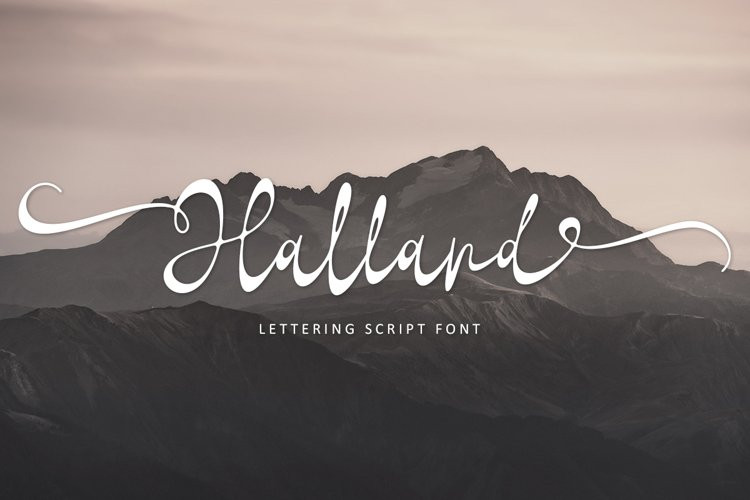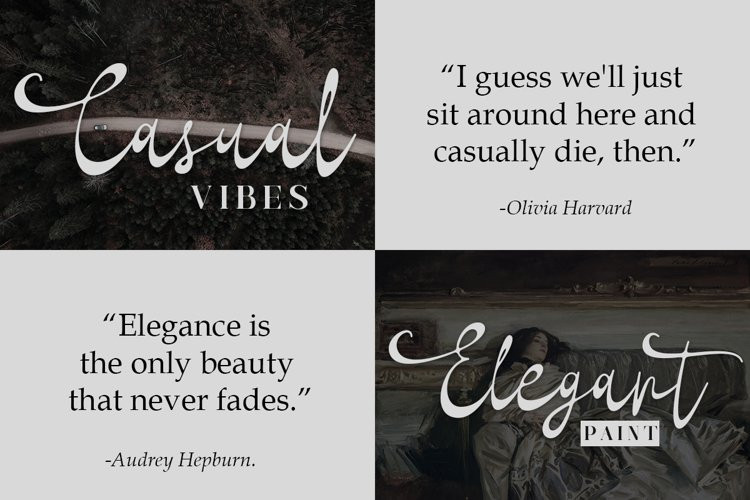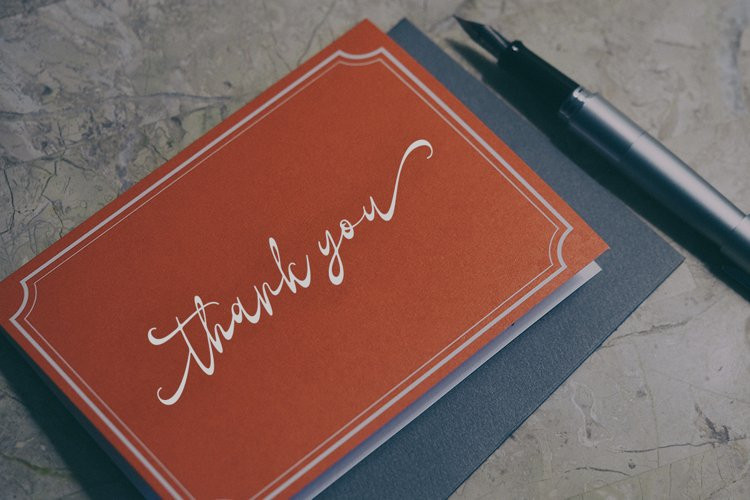
Halland Font
Halland FontHalland is an Lettering Script Font whose work is long enough, The design of the letters is quite beautiful, suitable for those of you who like the Classic & Elegant style, matching classic copper scripts with a modern touch, designed with high detail to open stylish elegance.